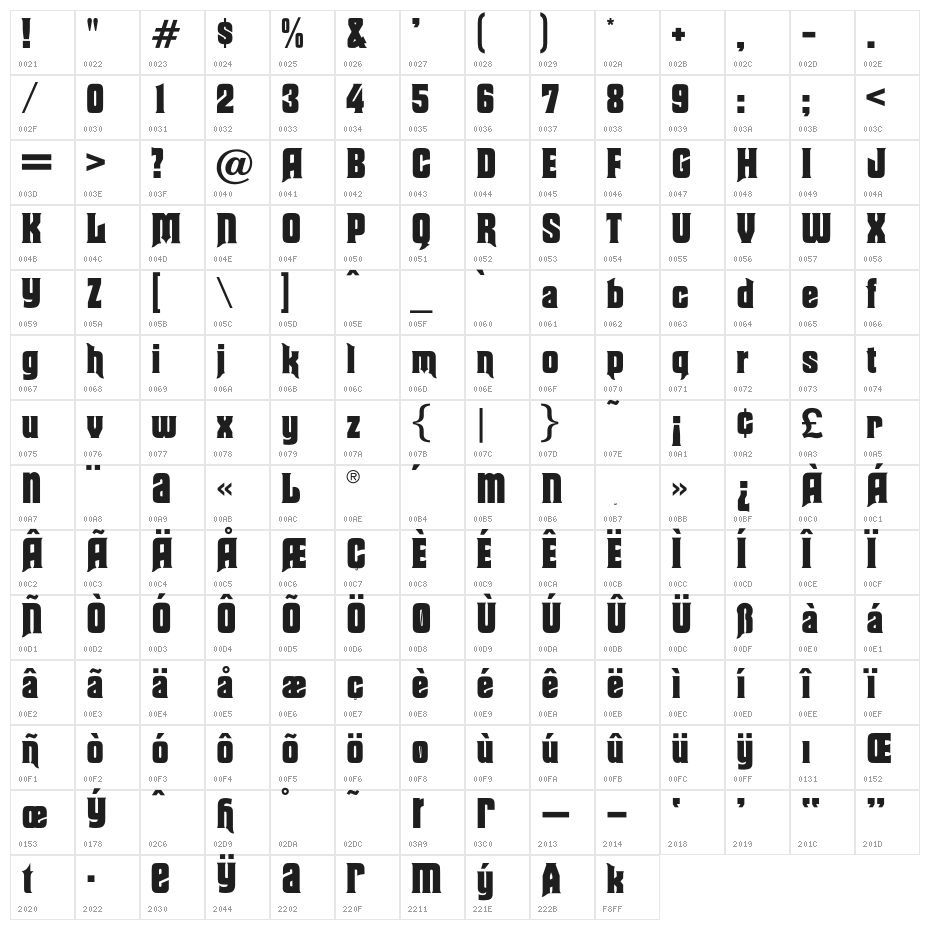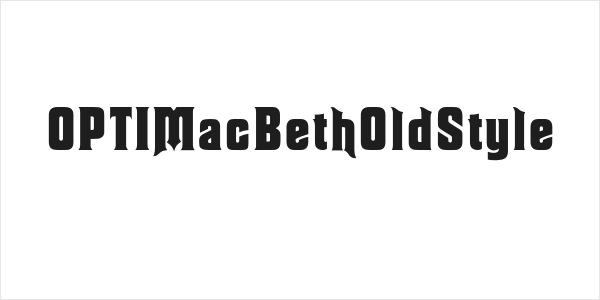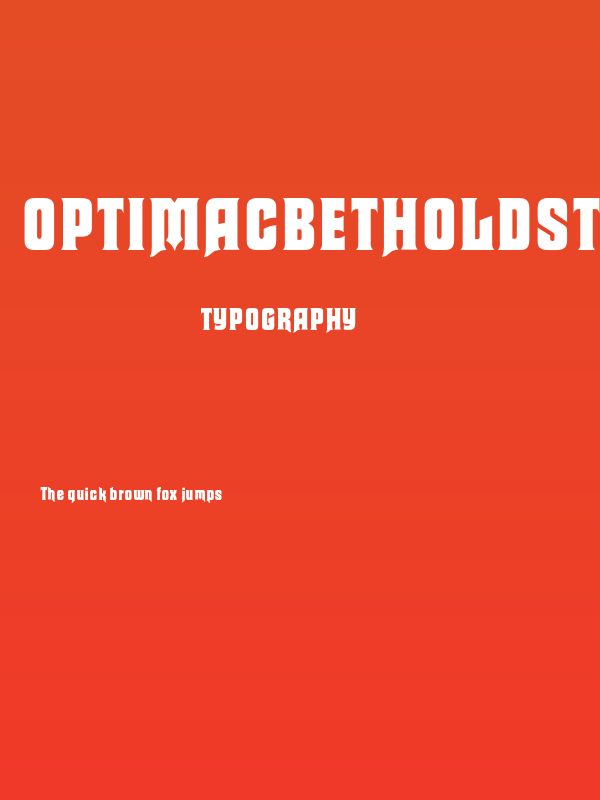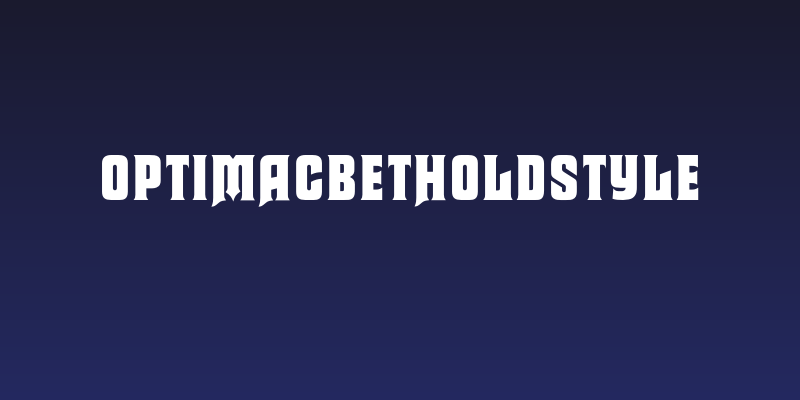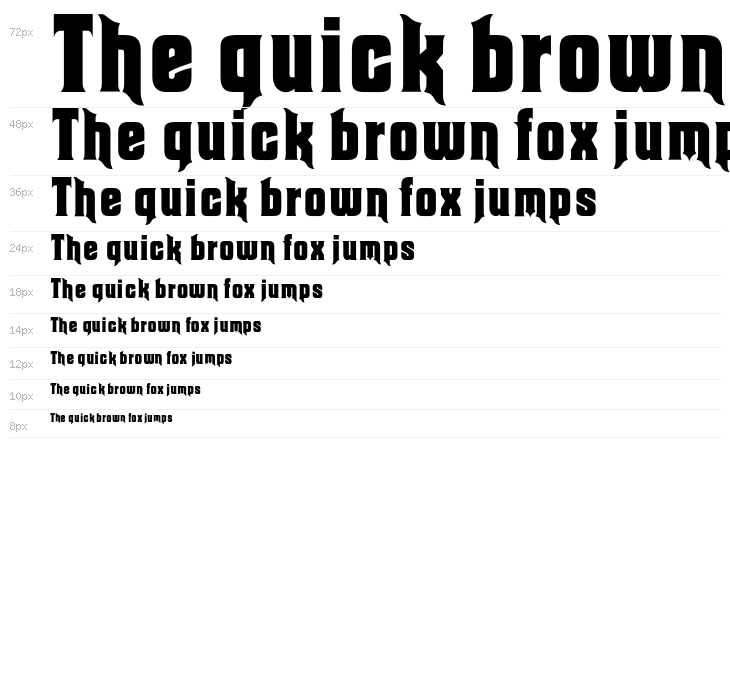
OPTIMacBethOldStyle Font
✎ Gothic
| Proiecte propuse | Ideal for vintage-themed posters, book covers, branding for luxury products, and any project requiring a touch of elegance and drama. |